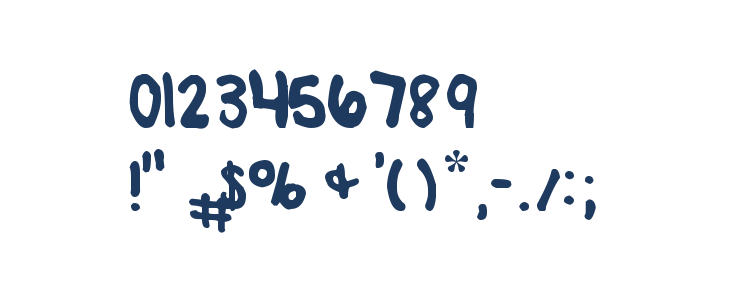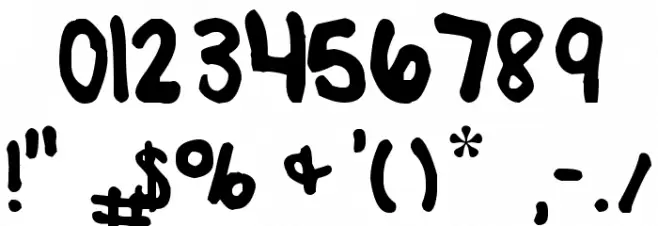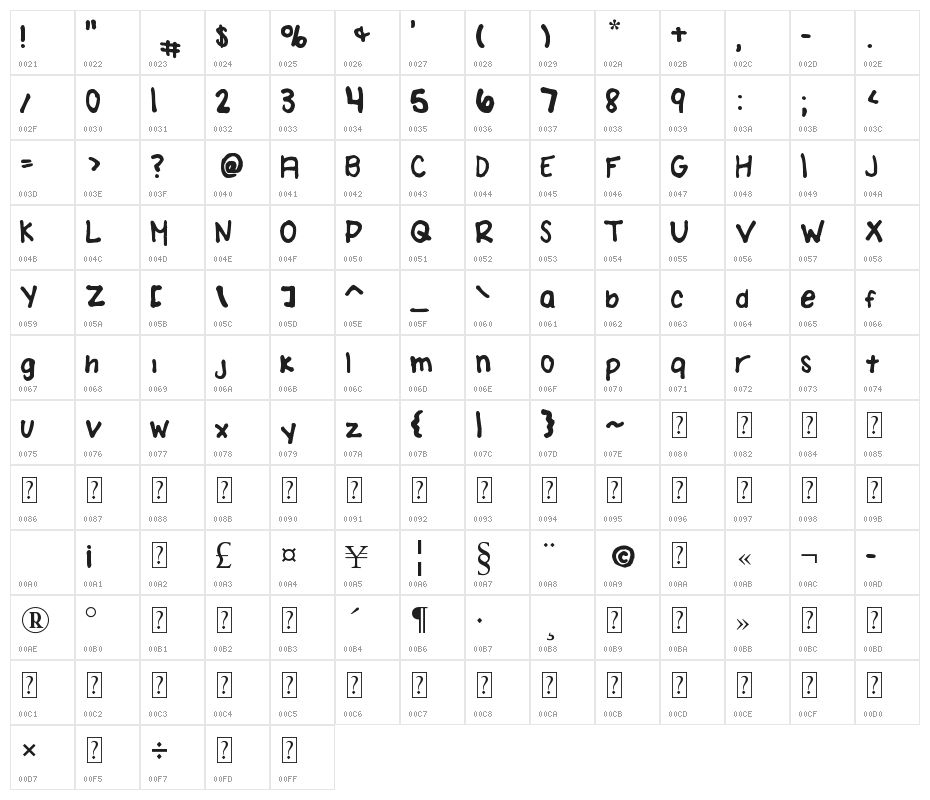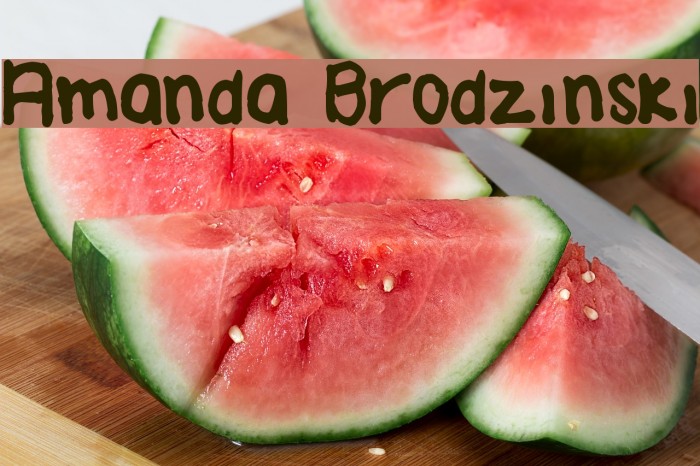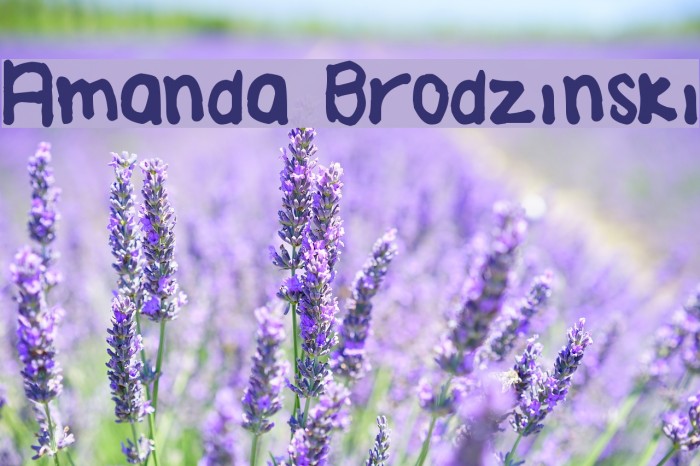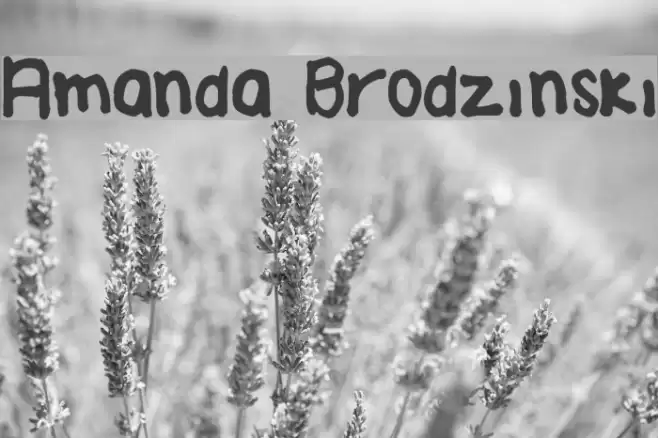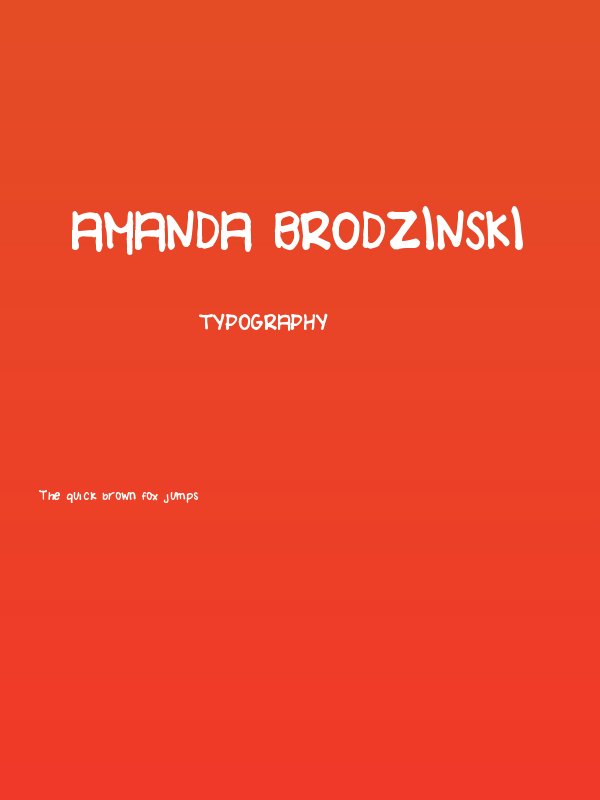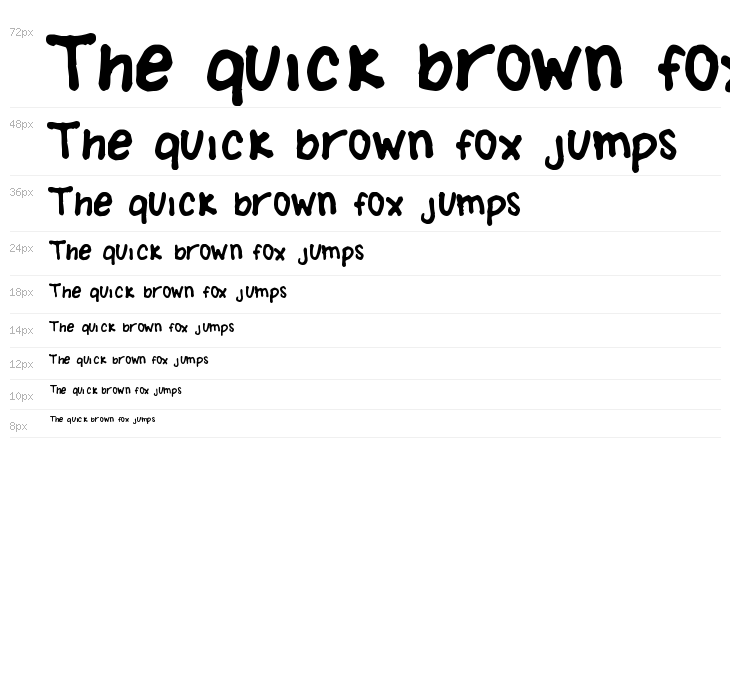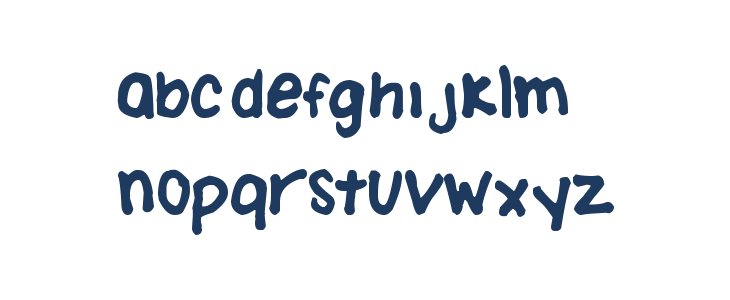
Amanda Brodzinski Font
Amanda Brodzinski Description
This font features a playful and casual handwritten style, characterized by its bold and rounded letterforms. The uppercase and lowercase letters maintain a consistent flow, with slightly irregular strokes that add to its informal charm. The numbers and special characters are equally bold, ensuring readability and a cohesive look across all characters. The overall appearance is friendly and approachable, making it suitable for projects that require a personal touch. The font's design is versatile, allowing it to be used in various creative contexts where a relaxed and informal aesthetic is desired.
| Proposed Projects | Ideal for greeting cards, children's books, casual branding, and social media graphics. |